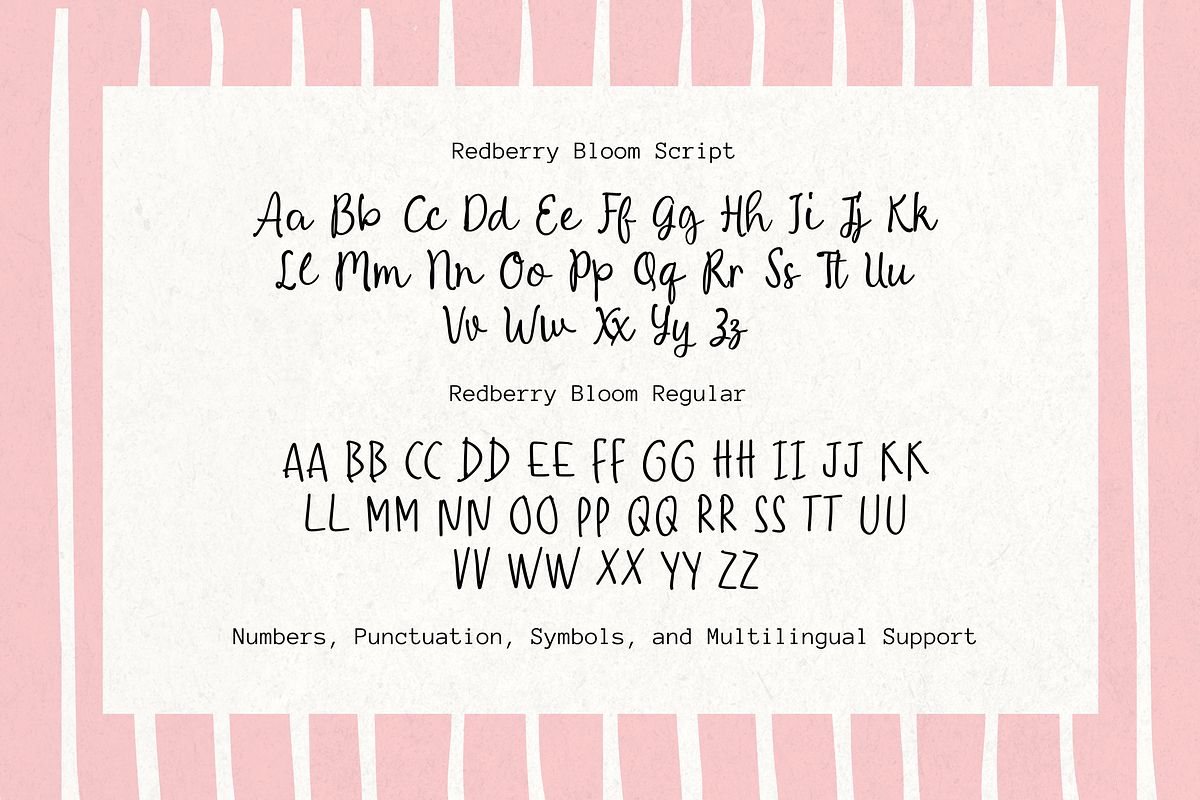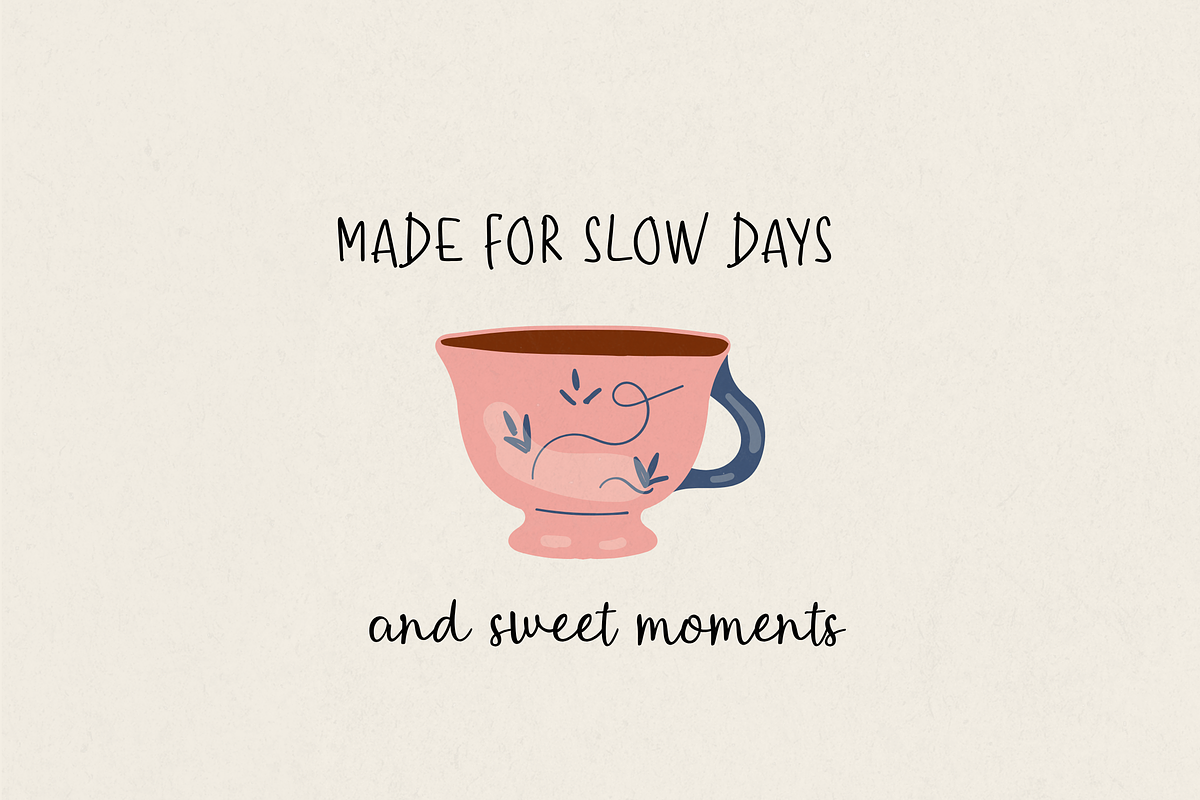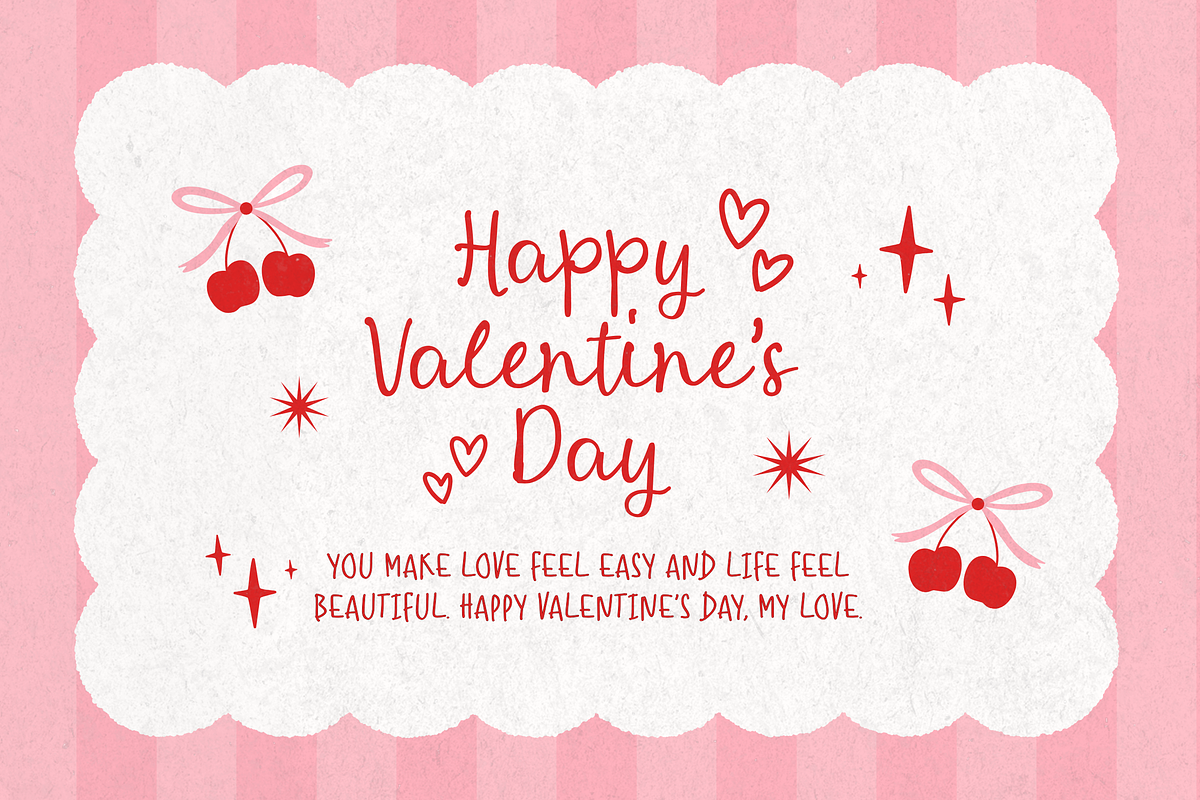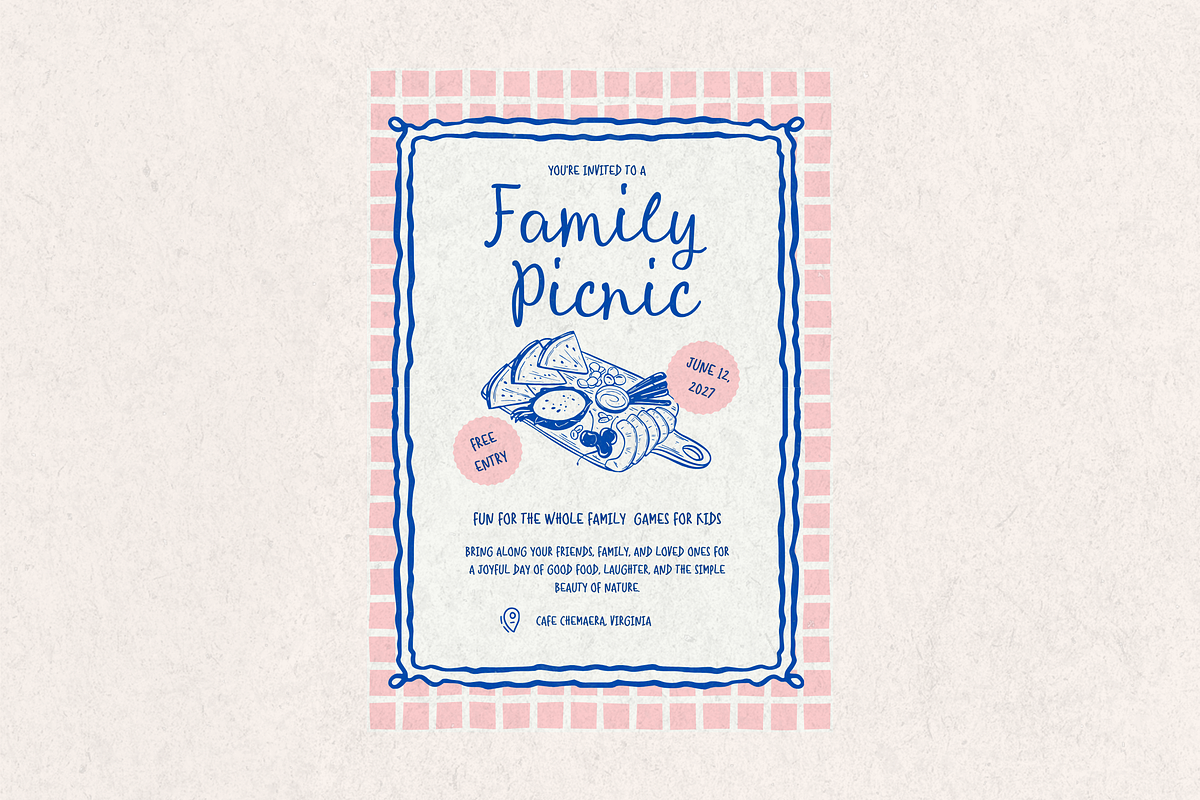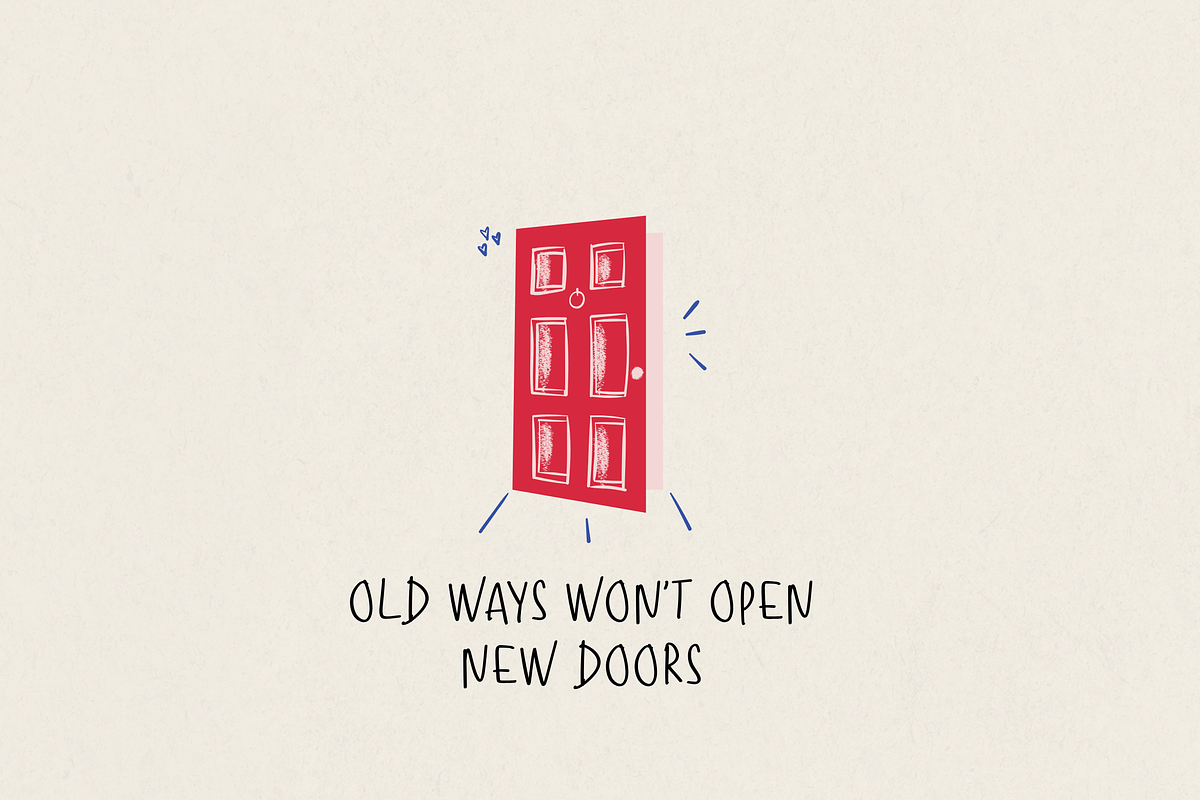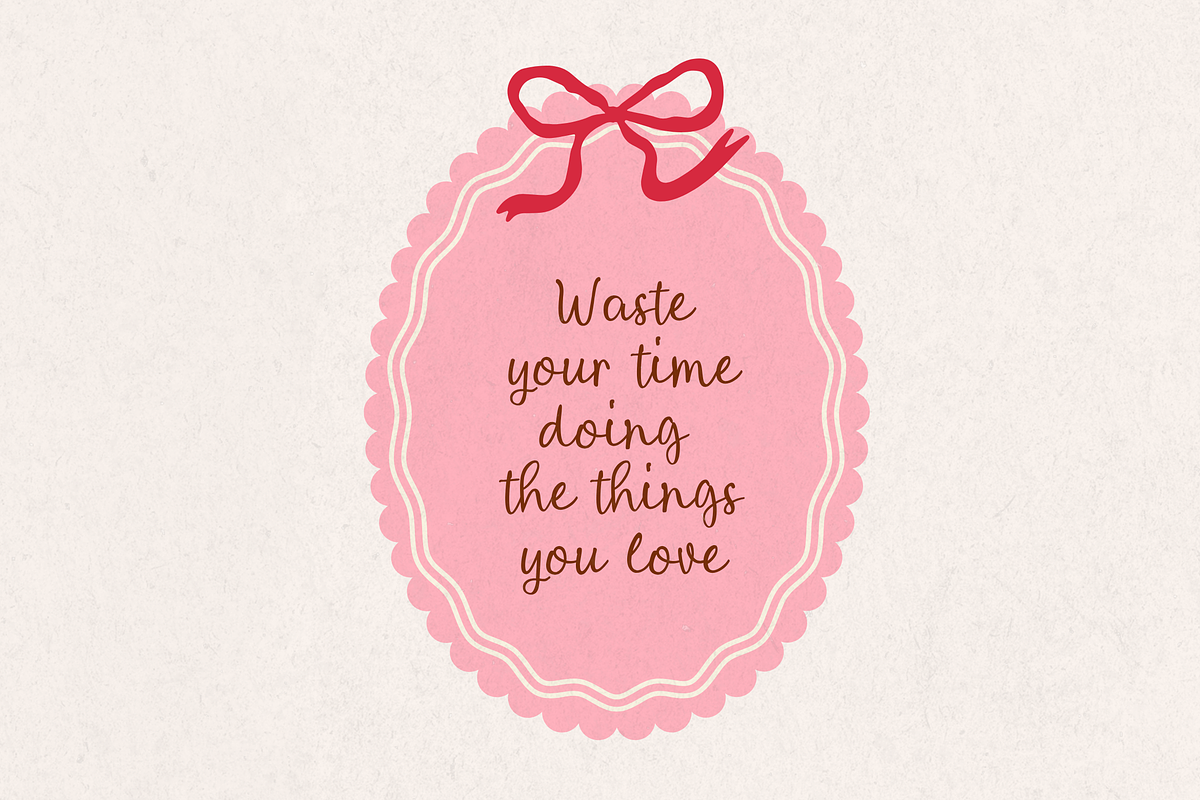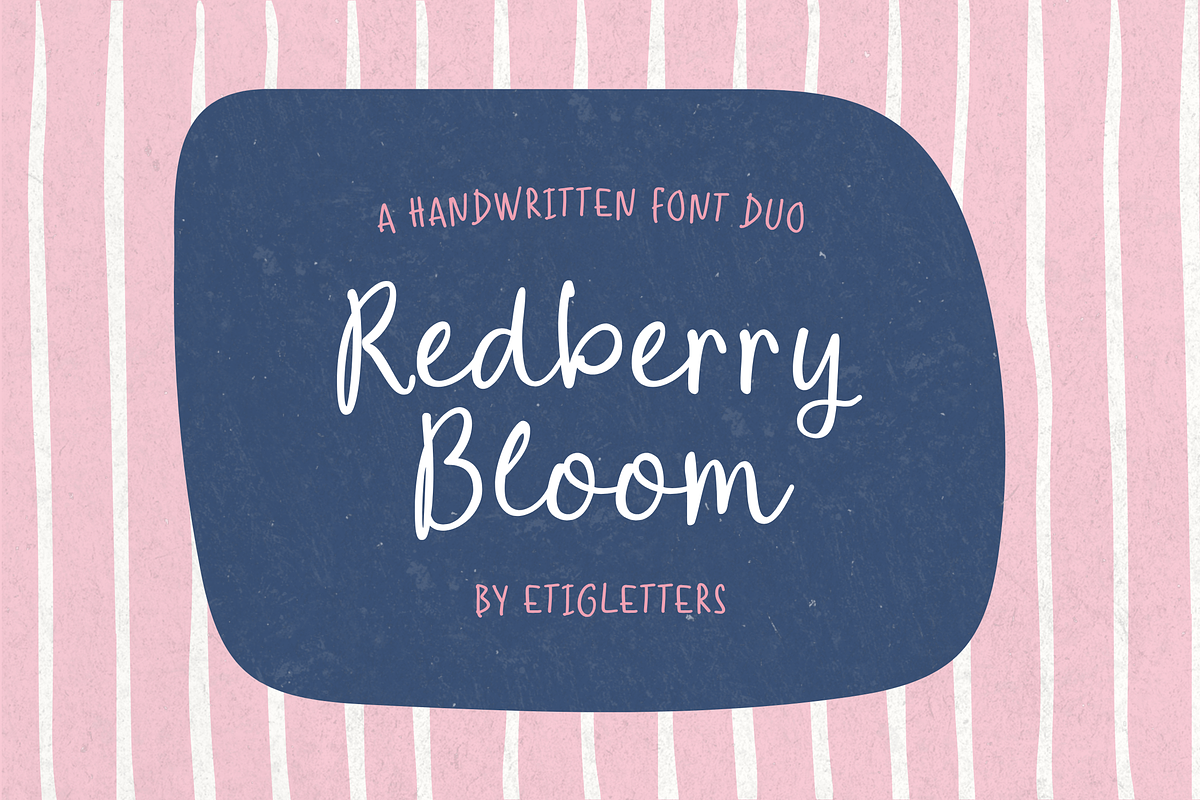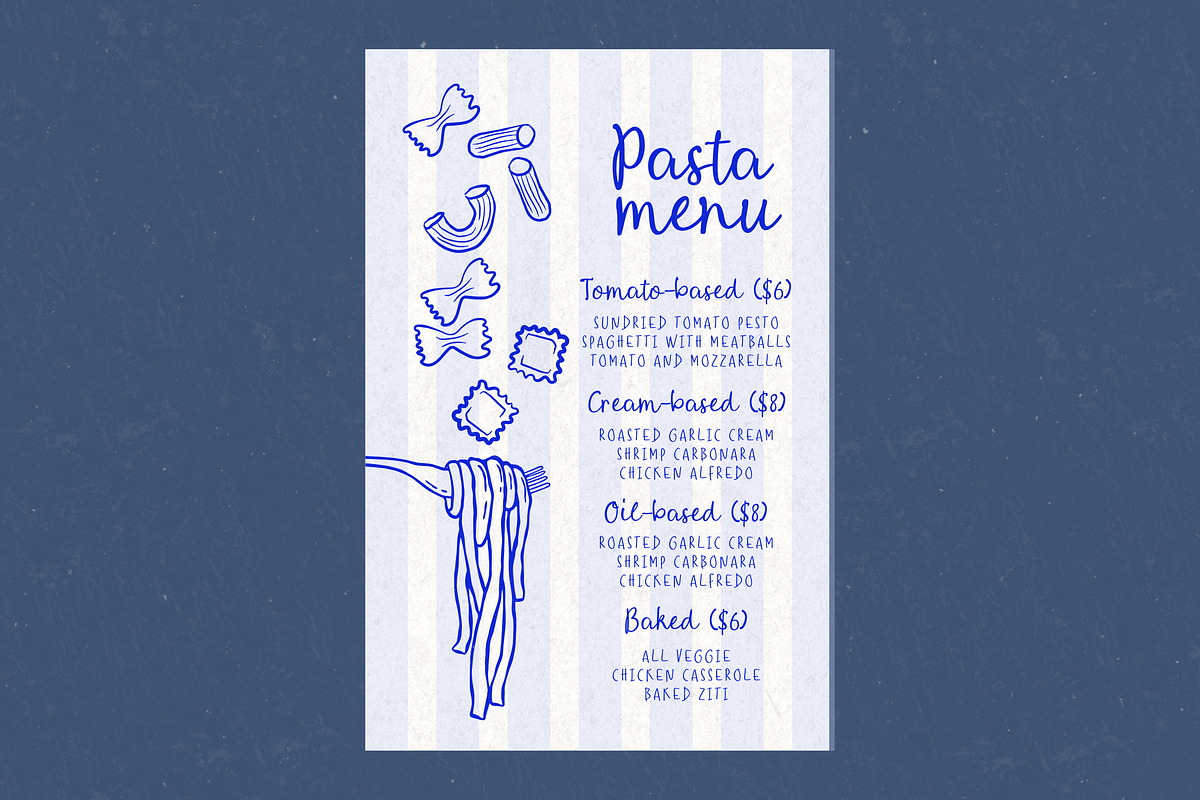
Redberry Bloom - Handwritten Duo
Introducing Redberry Bloom, a charming handwritten font duo designed to bring warmth, sweetness, and a cozy personal touch to your creative projects. Combining a playful script with a clean, casual companion style, this duo is perfect for designs that call for a gentle, handmade aesthetic.
Full set of Uppercase and Lowercase characters
Soft, aesthetic branding & logo design
Social media graphics, Instagram posts, and Pinterest quotes
Greeting cards, stationery, invitations, and wedding suites
Product packaging, tags, and artisan labels
Children's book typography, food menus, and merchandise